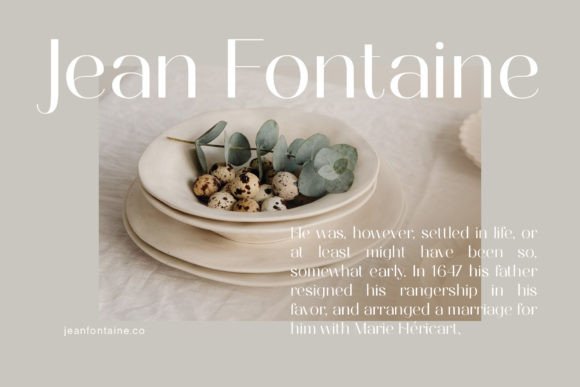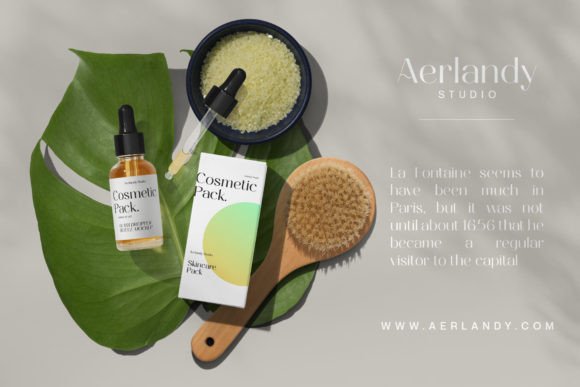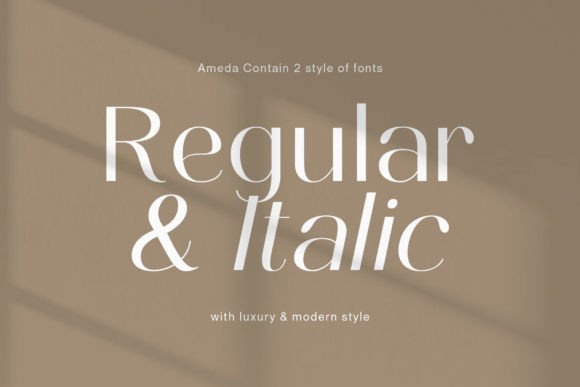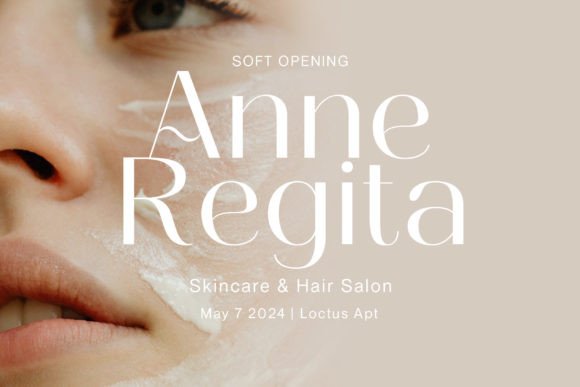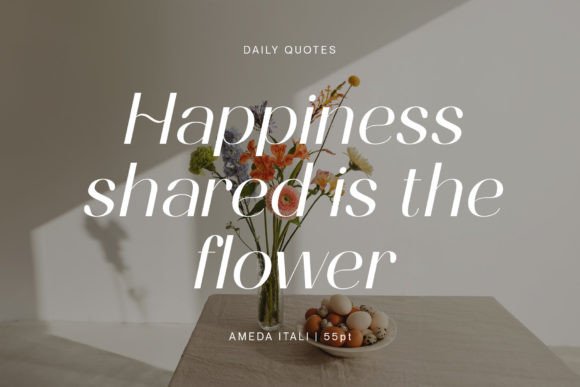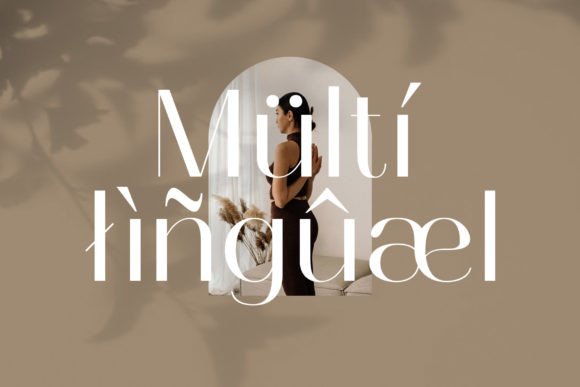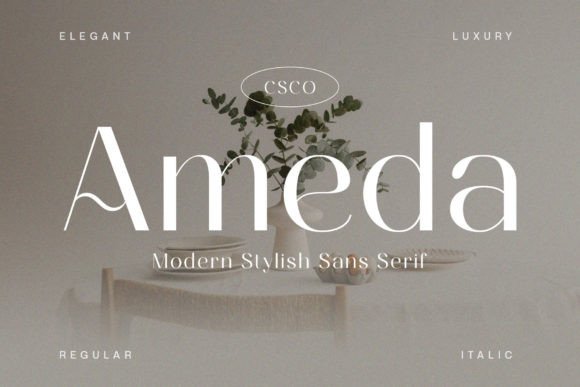
Introducing Ameda: The Ultimate Modern Sans-Serif Font for Designers
In the world of typography, a font can make or break a design project. With the right typeface, you can elevate your creative endeavors from mundane to mesmerizing. This is where Ameda Font comes into play – a modern, stylish sans-serif font that exudes sophistication and flair. In this article, we’ll dive into the world of Ameda, exploring its features, benefits, and uses, and why it’s the perfect addition to your typography arsenal.
The Ameda Advantage: High Contrast and Sophistication
Ameda Font boasts a unique high-contrast design that sets it apart from other sans-serif fonts. Its sleek lines, refined curves, and precision-crafted details create a visually stunning effect that’s sure to grab attention. Whether you’re working on a greeting card, packaging, brand identity, poster, or any other design project, Ameda’s distinctive style will infuse an exhilarating flair into your work.
Key Features of Ameda Font
- Modern Sans-Serif Design: Ameda’s clean and minimalist aesthetic makes it perfect for designs that require a touch of sophistication.
- High Contrast: Ameda’s high-contrast design creates a visually striking effect that’s sure to capture attention.
- Attention-Grabbing Style: Ameda’s unique design makes it ideal for projects that require a bold and eye-catching typeface.
- Versatile: Ameda is suitable for a wide range of design projects, from greeting cards to packaging, brand identity, posters, and more.
Why Choose Ameda Font?
With so many fonts available, why choose Ameda? Here are just a few reasons why Ameda Font stands out from the crowd:
- Unique Design: Ameda’s high-contrast design and sleek lines make it a standout typeface that’s sure to elevate your designs.
- Easy to Read: Despite its stylish design, Ameda remains highly legible, making it perfect for body text and headlines.
- Customizable: Ameda’s versatility allows you to experiment with different styles, sizes, and colors to create a unique look that suits your project.
Using Ameda Font in Your Design Projects
So, how can you use Ameda Font in your design projects? Here are a few ideas to get you started:
- Greeting Cards: Add a touch of sophistication to your greeting cards with Ameda’s elegant design.
- Packaging: Elevate your packaging designs with Ameda’s modern and stylish typeface.
- Brand Identity: Create a lasting impression with Ameda’s attention-grabbing style, perfect for logos, business cards, and more.
- Posters: Make a statement with Ameda’s bold and eye-catching design, ideal for posters, flyers, and brochures.
Tips and Tricks for Working with Ameda Font
To get the most out of Ameda Font, here are a few tips and tricks to keep in mind:
- Experiment with Different Sizes: Ameda’s design looks great in a variety of sizes, from small body text to large headlines.
- Play with Colors: Ameda’s versatility allows you to experiment with different colors and gradients to create a unique look.
- Mix and Match with Other Fonts: Ameda pairs well with other fonts, so don’t be afraid to experiment with different combinations.
In conclusion, Ameda Font is a modern, stylish sans-serif font that radiates sophistication and flair. Its high-contrast design, attention-grabbing style, and versatility make it the perfect addition to your typography arsenal. Whether you’re a designer, crafter, or DIY enthusiast, Ameda Font is sure to elevate your designs and take them to the next level. So why wait? Download Ameda Font today and experience the power of stunning typography for yourself!